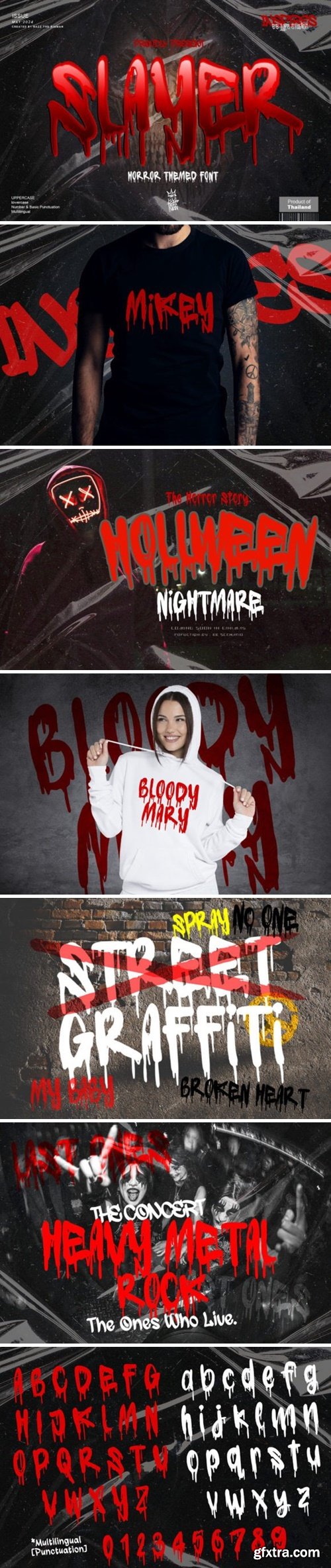
Immerse yourself in the playful allure of Slayer, a whimsically-shaped decor font that exudes a distinctively festive spirit. Crafted expressly for Halloween designs or October-themed celebrations, it’s the perfect gateway to enliven your creative endeavors with a touch of mystery. Dare to embellish your cherished designs with Slayer and marvel at the transformative magic it bestows, beautifully influencing the end result.